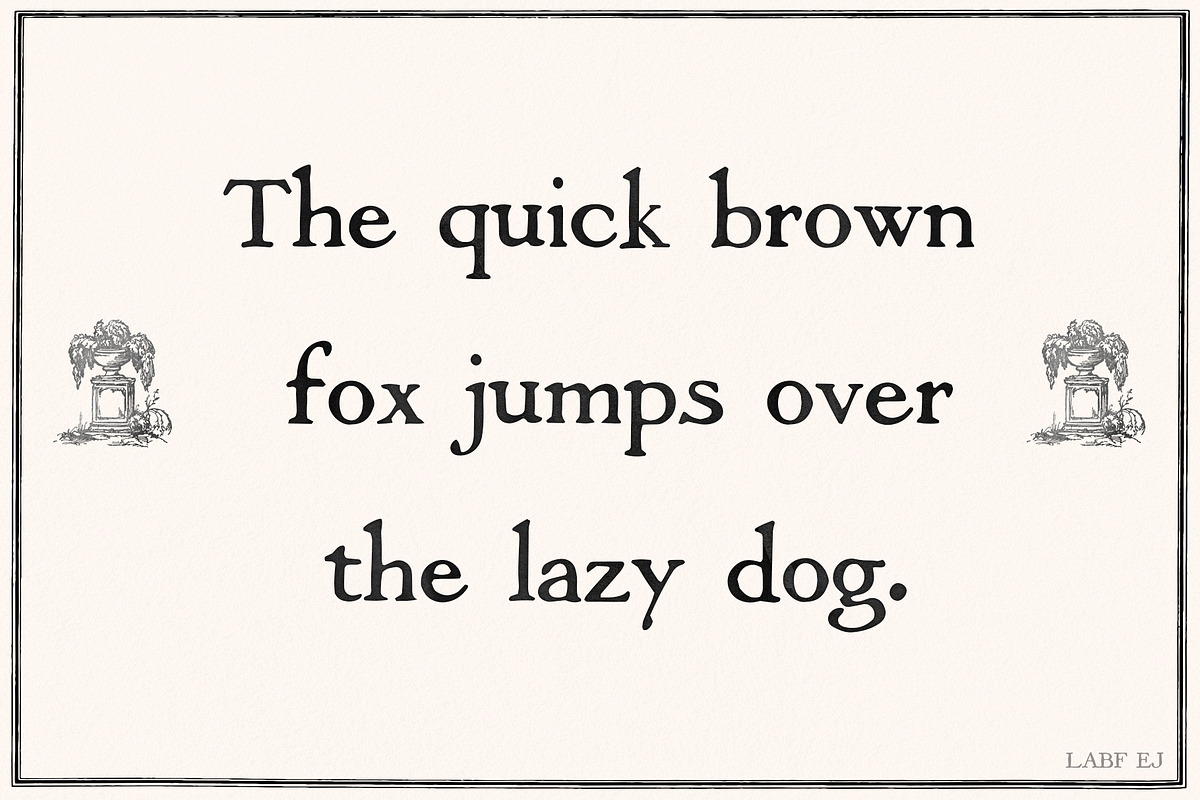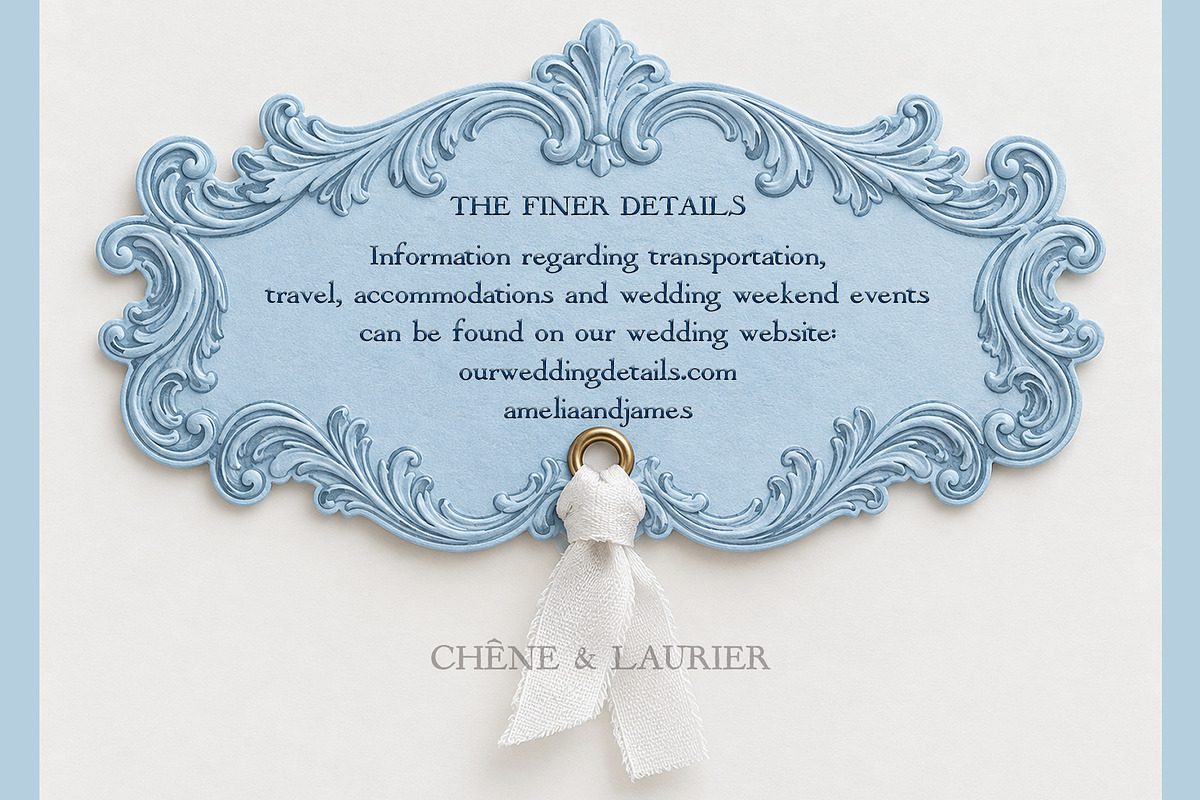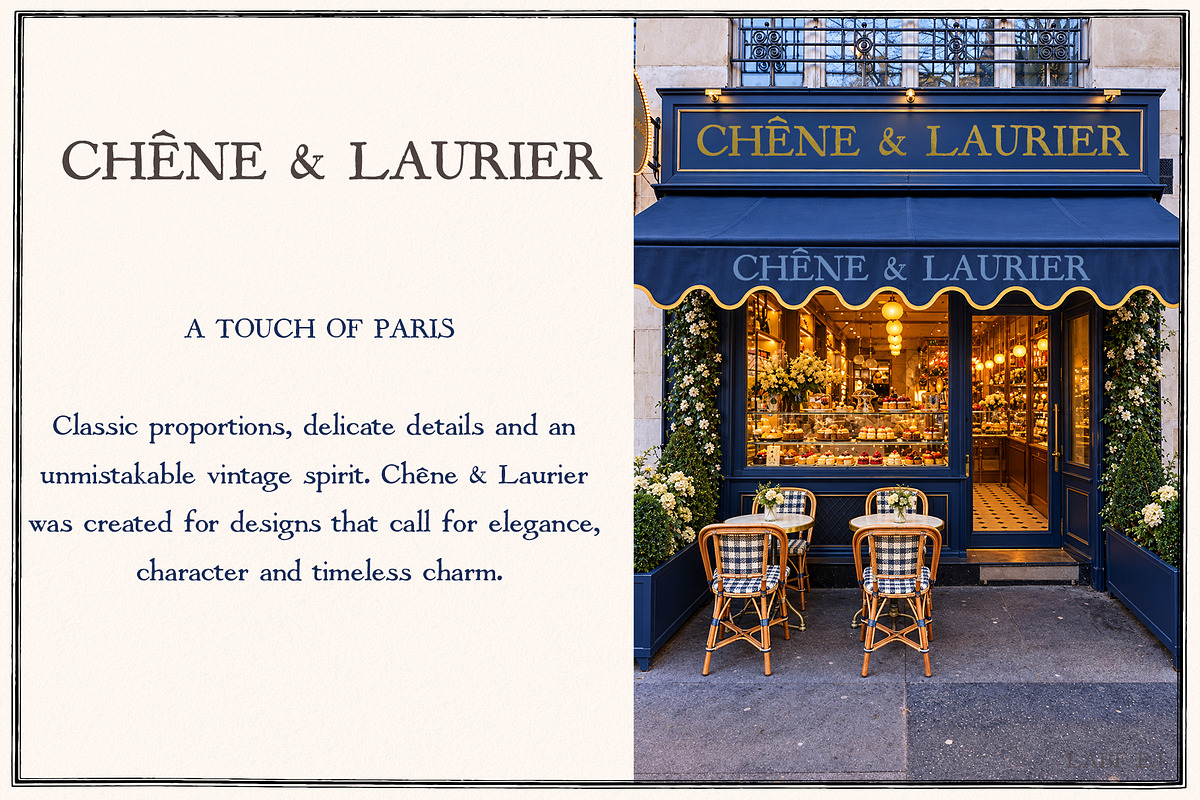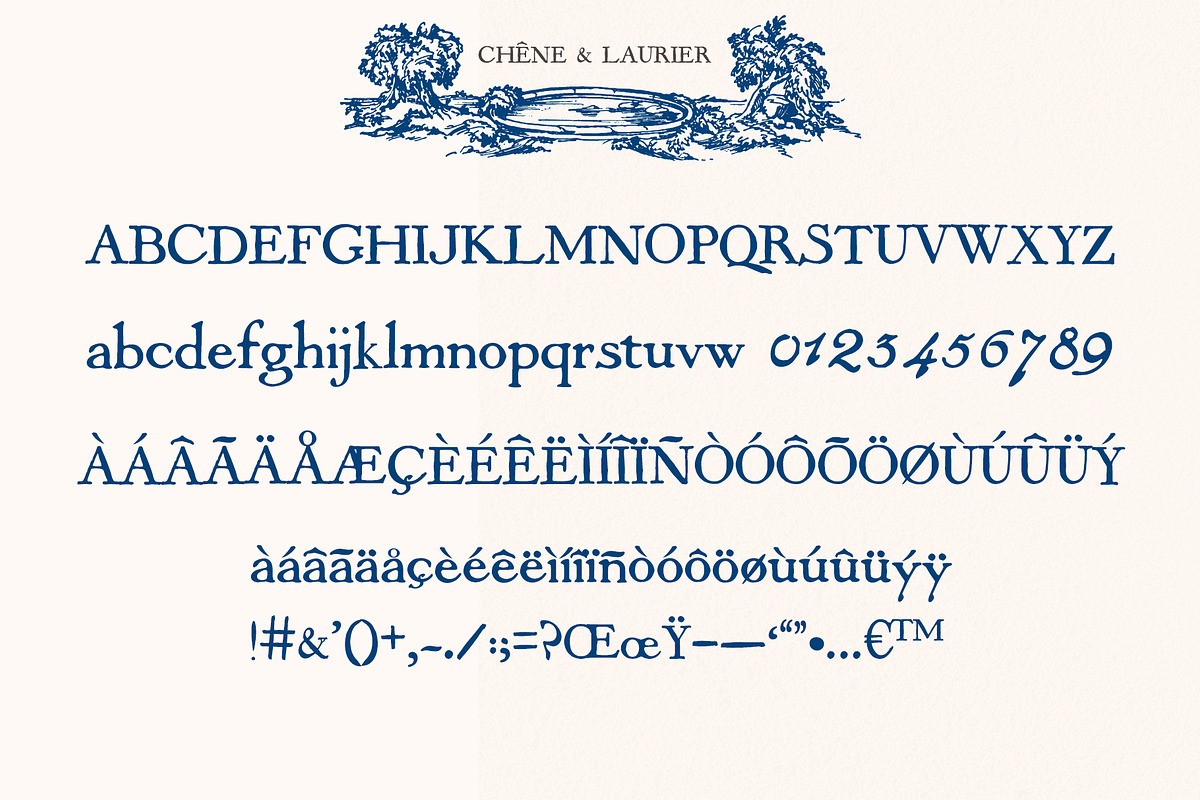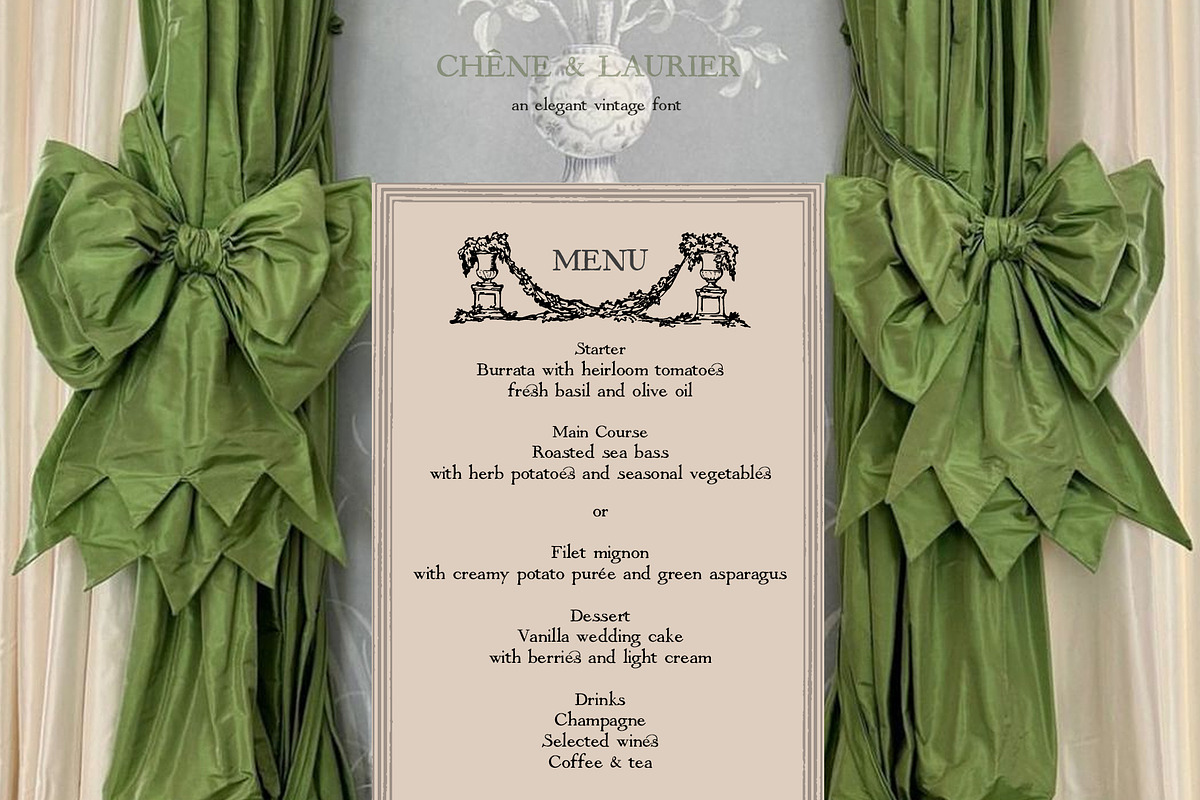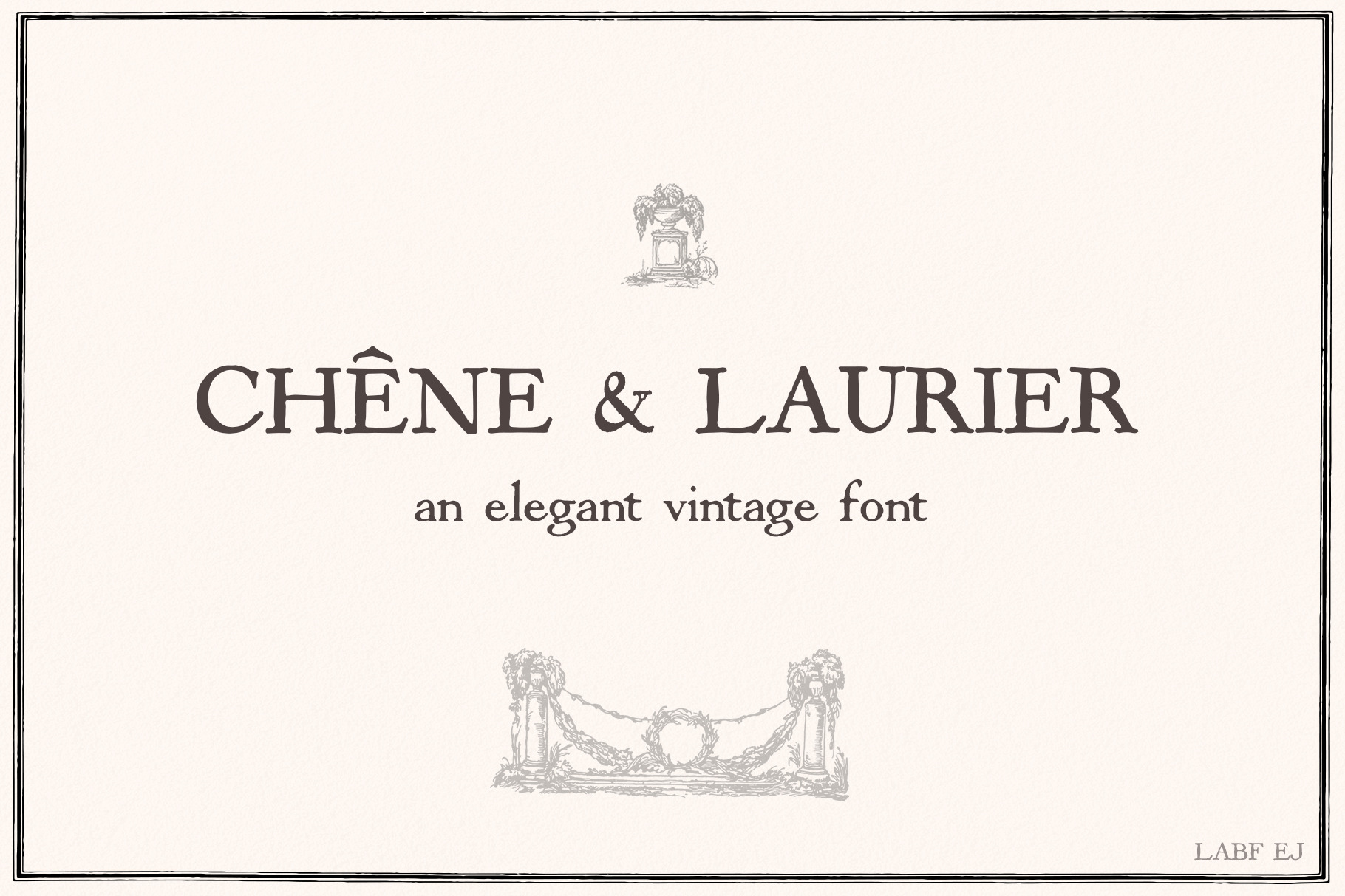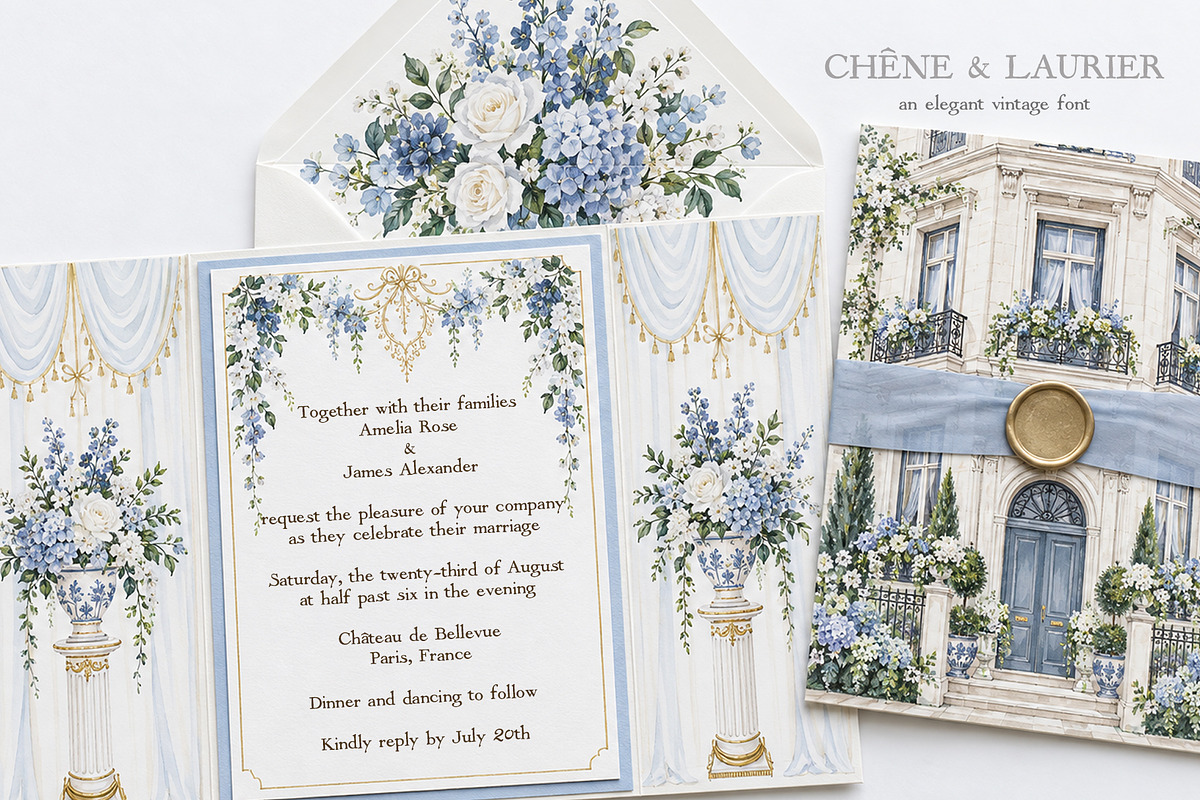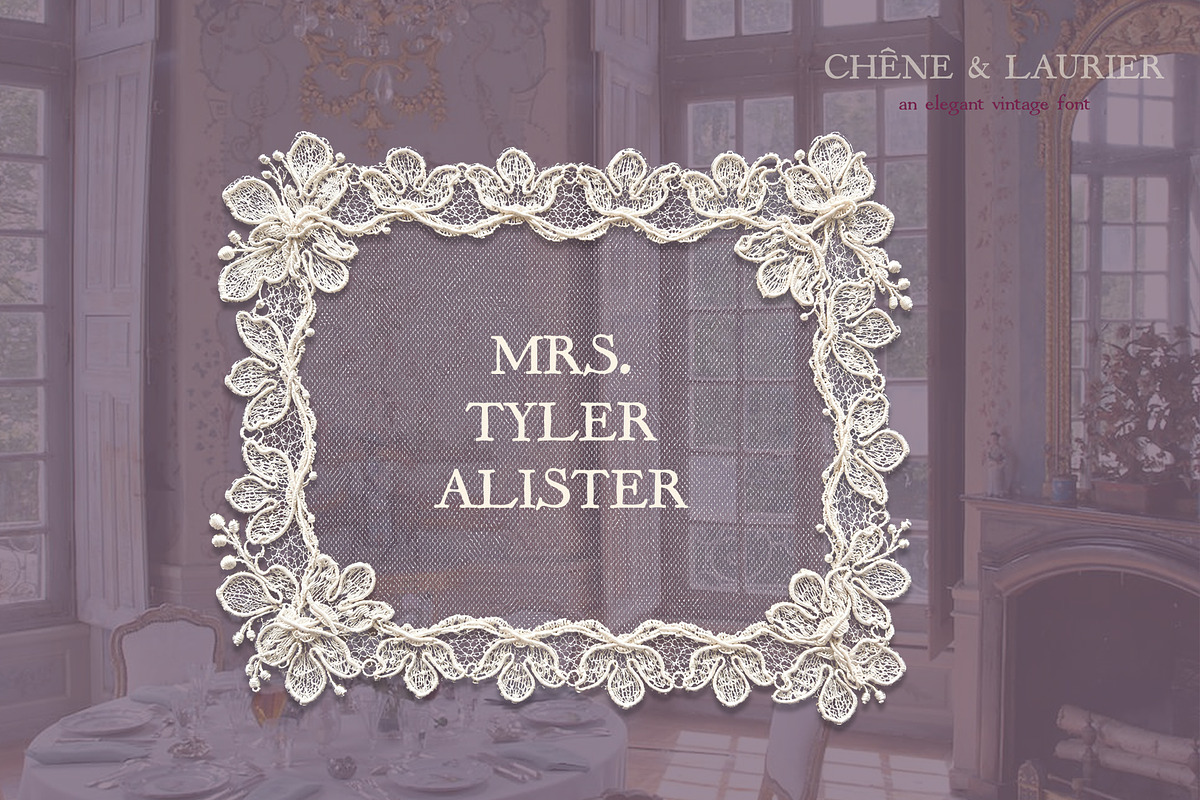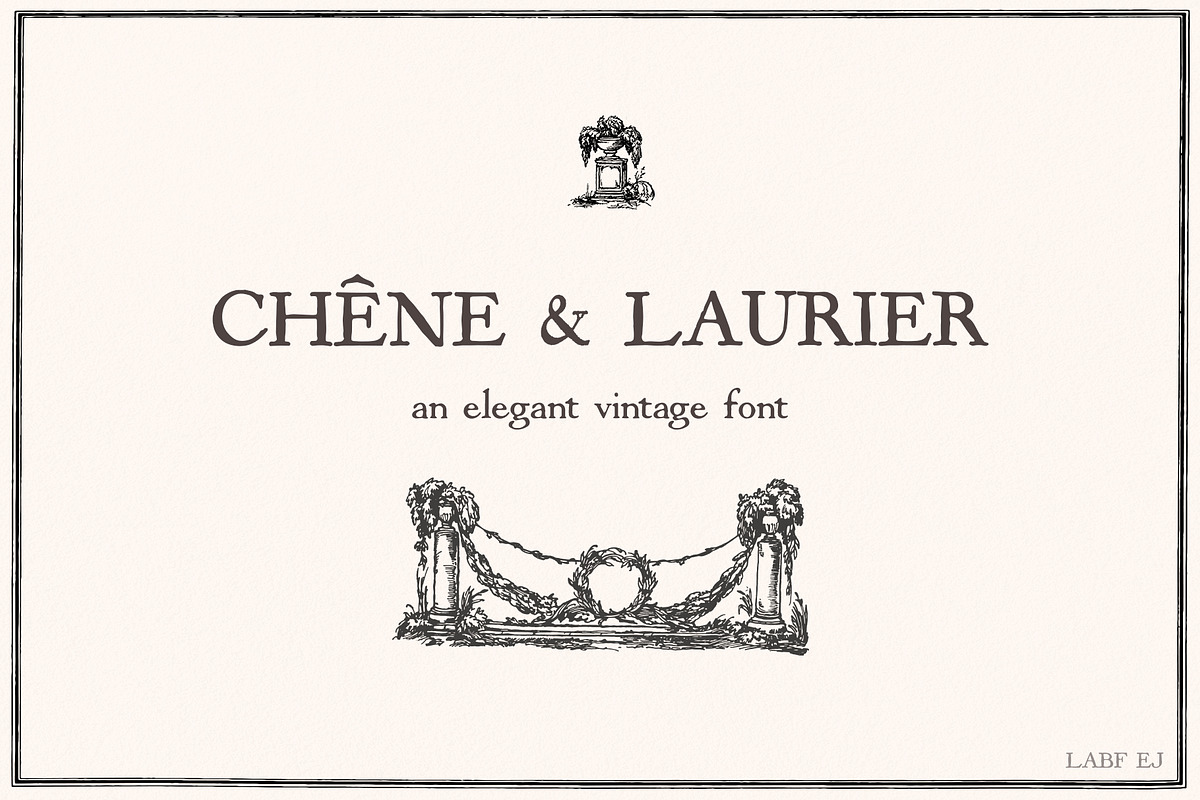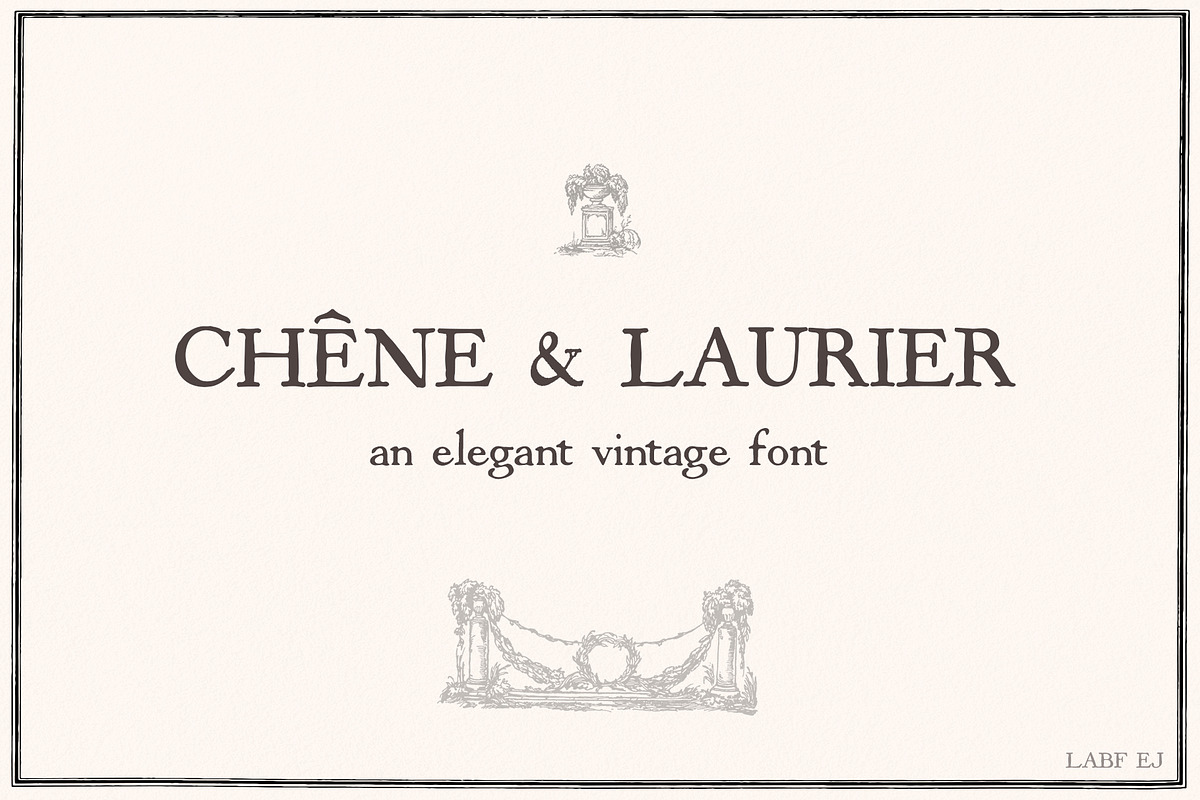
Chene & Laurier Elegant Serif Font
Chêne & Laurier is an elegant vintage serif typeface inspired by classic French typography, old books, refined stationery and timeless editorial design.
With its graceful letterforms and sophisticated character, Chêne & Laurier is perfect for branding, logos, wedding invitations, menus, packaging, editorial layouts, book covers, magazines, stationery and luxury-inspired projects.
Its classic yet distinctive appearance brings a touch of old-world French elegance to both modern and vintage designs.
Uppercase & lowercase characters
Perfect for: editorial design, luxury branding, wedding stationery, invitations, menus, packaging, logos, magazines, books, fashion projects and elegant social media graphics.